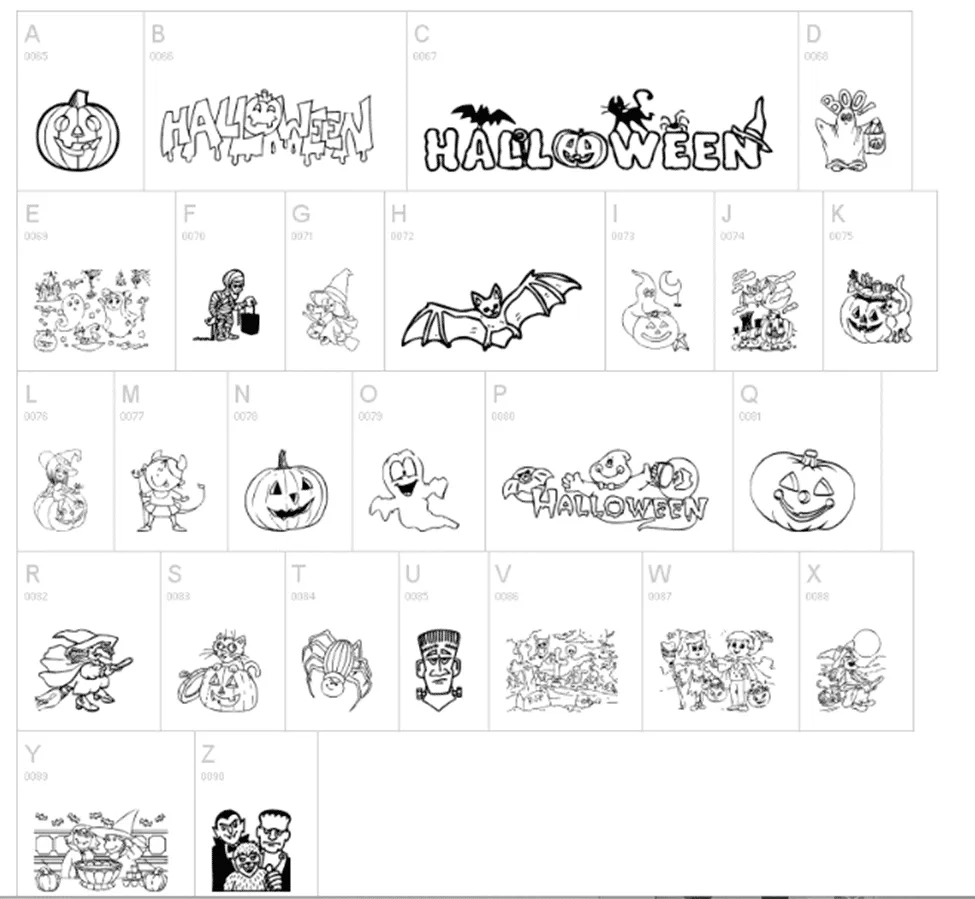
Halloween is just around the corner, and what better way to add a chilling touch to your documents than with the perfect Halloween font in MS Word? Whether you’re creating spooky invitations, designing eerie posters, or just want to add some seasonal flair to your work, the right font can make all the difference. While Microsoft Office offers a few basic options, the web is teeming with free and freaky fonts ready to download. Let’s explore some of the best Halloween-themed fonts to make your Word documents truly haunting.
Unlocking the Default: Algerian
Before diving into the depths of the internet, let’s not forget the one font lurking within Microsoft Office itself: Algerian. While not explicitly Halloween-themed, its somewhat gothic and unusual style can lend a subtle spooky vibe to your text. Consider it a foundational font for your Halloween designs, ready to be paired with more themed choices.
Beyond the Basics: Free Halloween Fonts
Ready to venture beyond the standard font selection? Here are some chillingly creative fonts you can download and use in MS Word:
A Charming Font
Inspired by the popular TV show ‘Charmed,’ this font offers a magical touch with a hint of mystery. Available in italic, expanded, and regular styles, “A Charming Font” from Fontspace.com provides versatility for various Halloween-themed projects. The inclusion of 255 characters ensures compatibility and creative freedom.
Jack O
Looking for a font that screams Halloween? “Jack O” from dafont.com is your answer. This headings font, reminiscent of carved pumpkins, is perfect for titles and large text on PowerPoint slides. Its upper and lower case letters provide clarity and impact for Halloween-themed projects.
Halloween Spider
Add a creepy-crawly element to your text with “Halloween Spider” from daFont.com. This font features capitals adorned with spiderwebs, along with essential punctuation marks like ?, ., and !. Perfect for adding a touch of arachnophobia to your Halloween designs.
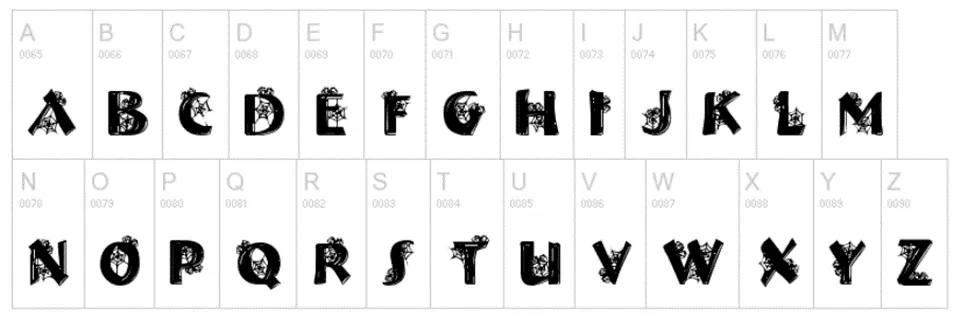
October Crow
Inspired by a movie, “October Crow” from DaFont.com is a capitals-only font that evokes a sense of mystery and suspense. Its bold design and unique character shapes make it ideal for headlines and titles that need to grab attention during the Halloween season.
Groovy Ghosties
For a playful and spooky vibe, “Groovy Ghosties” from DaFont.com is an excellent choice. Available in outline, front, and back styles, this font features incorporeal beings that add a touch of whimsy to your designs. It also boasts a wide range of symbols, including apostrophes, colons, semi-colons, brackets, and accented letters, making it versatile for various projects.
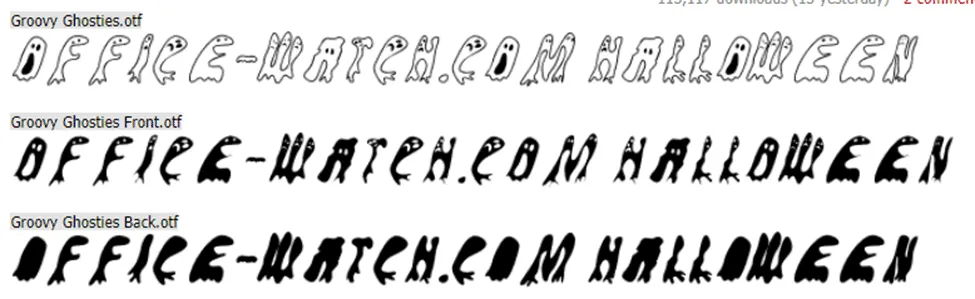
Freaky Halloween symbols
Enhance your Halloween creations with “Freaky Halloween symbols” from DaFont.com. This font offers a small range of Halloween-themed symbols in its demo version, perfect for adding visual interest to your designs. For a more comprehensive set of symbols, the full, paid version is available on Creative Fabrica.
Halloween
For a more ornate and detailed set of Halloween symbols, consider “Halloween” from DaFont.com. These drawings are best used in larger sizes, making them ideal for posters and banners. The intricate designs capture the essence of Halloween, adding a touch of sophistication to your spooky projects.
Halloween ornate symbol examples
Conclusion
With the right Halloween font in MS Word, you can transform your documents into chilling masterpieces. From the subtle spookiness of Algerian to the outright fright of fonts like “Halloween Spider,” there’s a font to suit every Halloween project. So, download your favorites, get creative, and make this Halloween your most stylishly spooky yet!